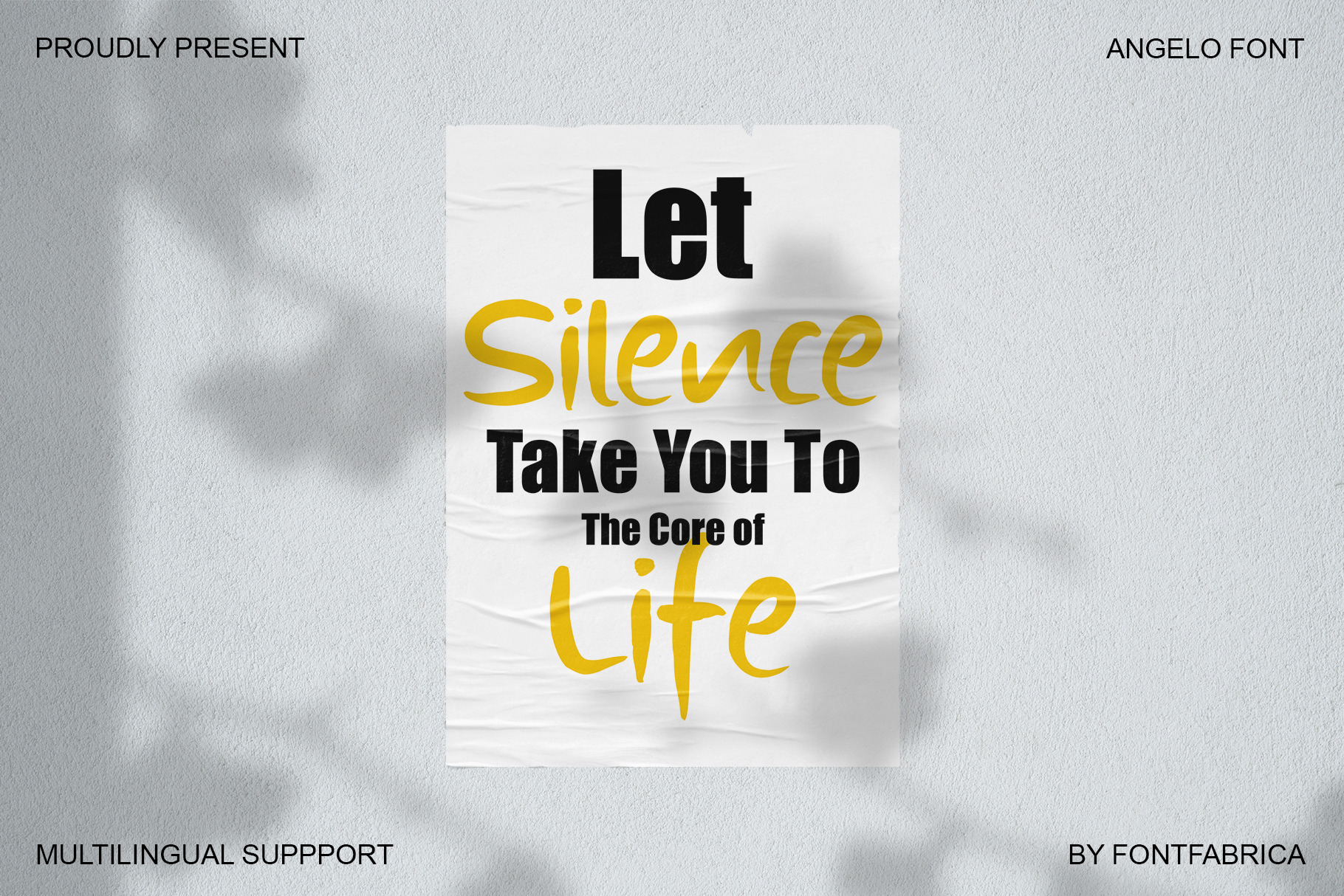
ANGELO Font | FONTFABRICA
ANGELO Font by FONTFABRICA
Angelo Font is Display Handwritten Font.
- Uppercase, lowercase and numbers
- Multilingual support with accented characters for international designers